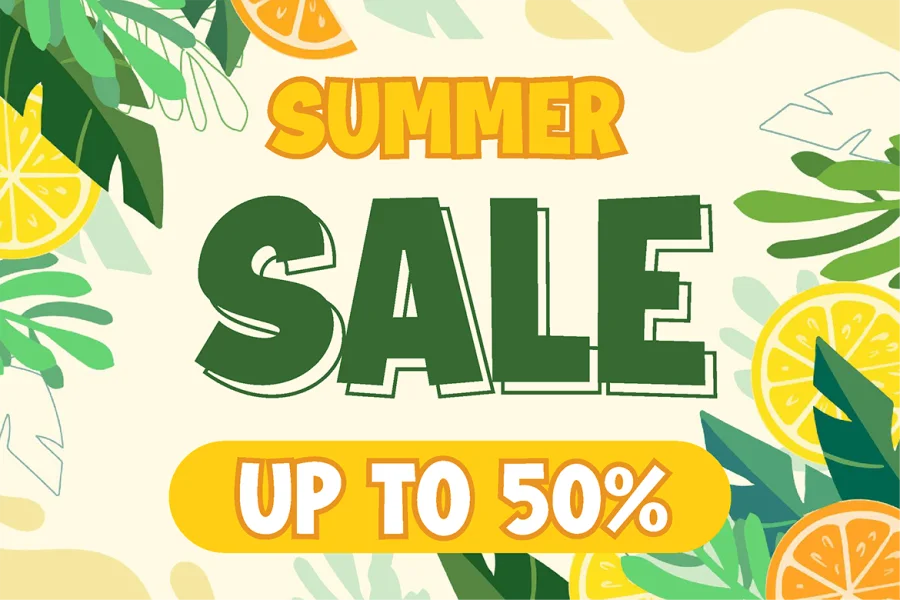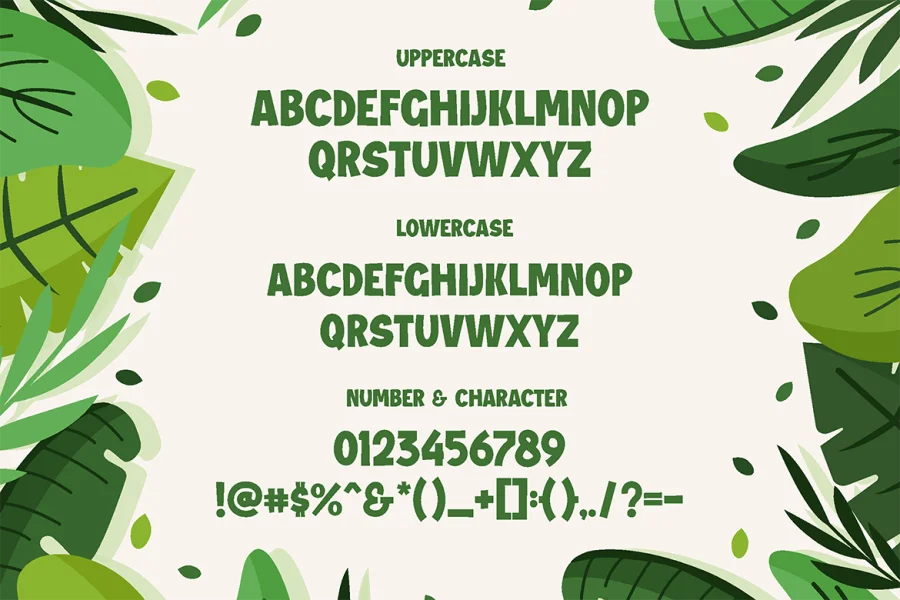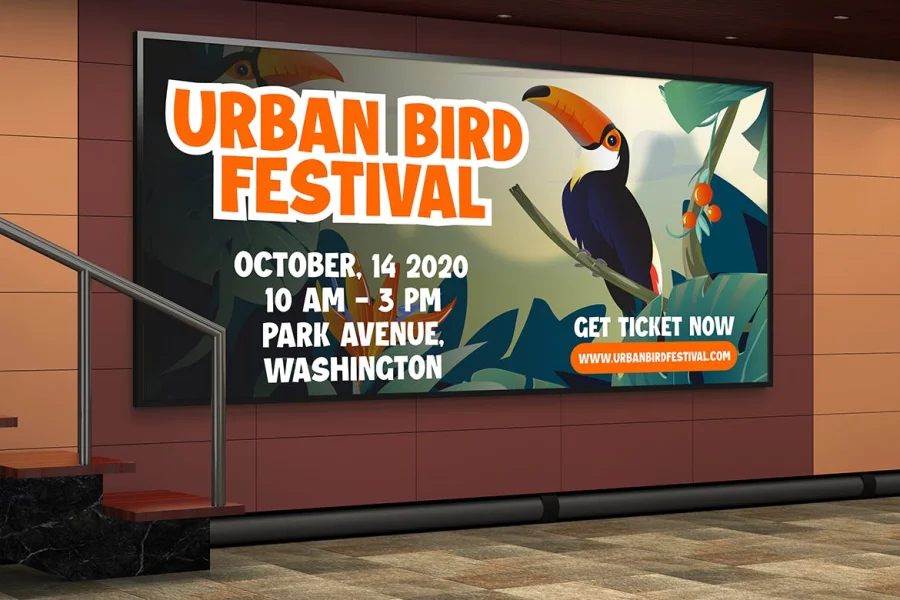
Having a bold shape with a powerful and strong stern sans-serif with a sharp corner will make Jungle Adventurer emphasize every word you put on the screen. Suit perfectly for Online Games, posters, movie titles, fast food menus, magazines, youtube covers, youtube thumbnails, social media page covers and so on…